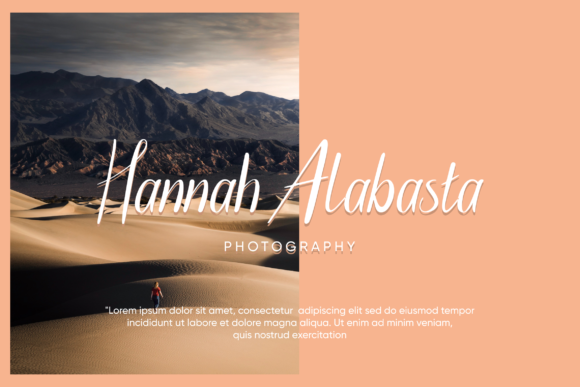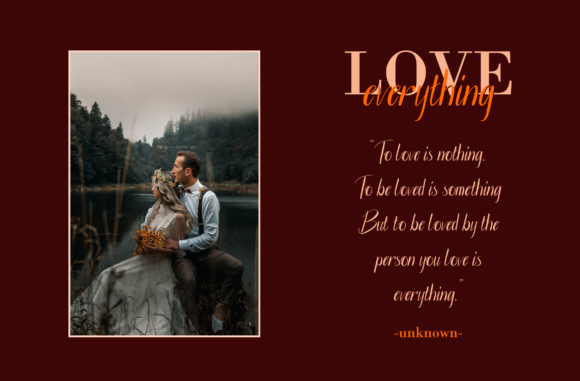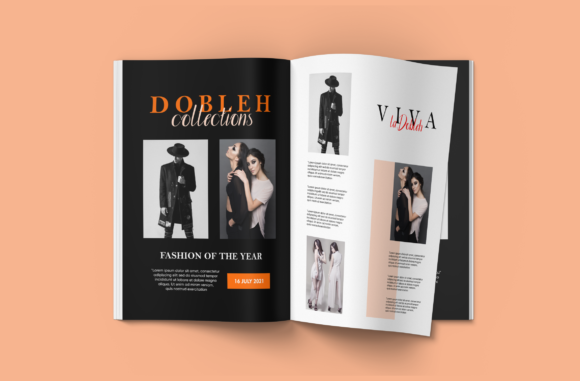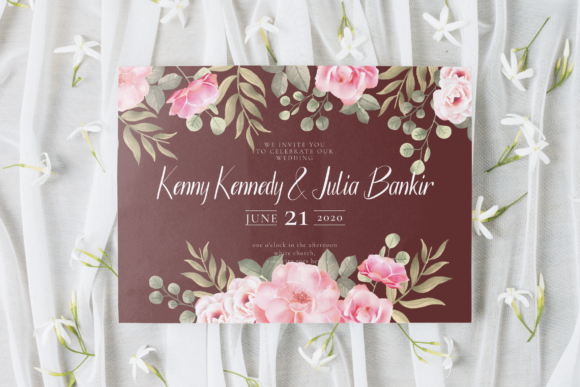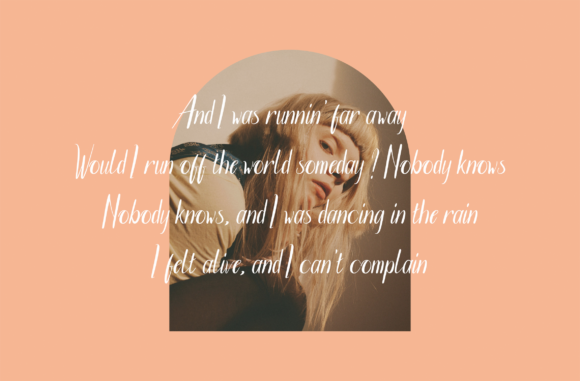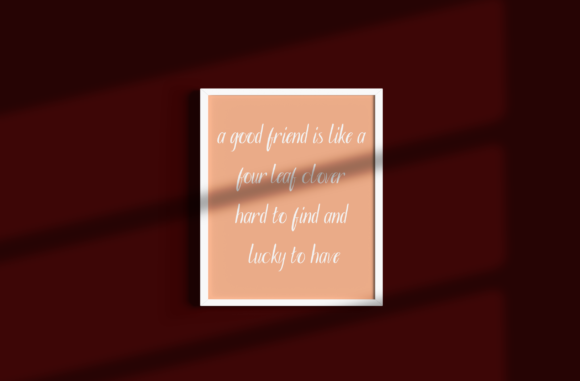
Bringing Your Designs to Life with the Perfect Script
Have you ever stared at a blank page, waiting for inspiration to strike? The blank space can be daunting, but sometimes all it takes is the right tool to set your creative juices flowing. For designers looking to add a touch of elegance to their work, the Brigitta Austin Font is the perfect companion.
This laid-back and versatile script font is designed to make your designs stand out. Whether you’re creating eye-catching logos, branding, or quotes, Brigitta Austin Font is the ideal choice. Its unique and beautiful touch brings each letter to life, making your design truly special. As a designer, you know the importance of having the right tools at your disposal – and Brigitta Austin Font is a valuable addition to any toolkit.
Brigitta Austin Font Key Features
- Unique Characteristics: Elegant, sophisticated, and refined script font with subtle flair and fluid connections
- Font Style: Script, Calligraphy
Brigitta Austin Font Review
As a designer, I recently had the chance to work with the Brigitta Austin Font, and I must say it’s a unique and intriguing typeface. ✨ The first thing that caught my attention was its elegant and refined aesthetic, perfect for creating a sophisticated and high-end look.
- ✨ Beautifully crafted letterforms with a mix of geometric and organic elements.
- ✨ Wide range of weights and styles to choose from, making it suitable for various design projects.
- ✨ Excellent legibility, even at smaller font sizes.
However, there are some limitations to consider. ⚠️ The font can feel a bit inconsistent in its spacing and kerning, which may require some manual adjustments in certain cases. Additionally, the font’s character set is not as comprehensive as some other typefaces, which may limit its use in certain languages or applications.
Overall, I think the Brigitta Austin Font is a great choice for designers who want to create a unique and stylish look. While it may require some extra attention to detail in terms of spacing and kerning, its elegant aesthetic and wide range of styles make it a valuable addition to any design toolkit.
Getting the Most Out of the Brigitta Austin Font
Here are some tips for getting the most out of the Brigitta Austin Font:
- Pair the font with other fonts to create a unique and eye-catching design.
- Use the font in conjunction with images and graphics to create a cohesive design.
The Brigitta
Alternatives to Brigitta Austin Font
Playfair Display is a luxurious, high-end serif font that exudes elegance and sophistication. It’s ideal for use in high-end branding, luxury products, and formal invitations. Compared to Brigitta Austin Font, Playfair Display has a more refined and classic feel, making it perfect for projects that require a touch of luxury.
Great Vibes is a beautiful, elegant script font that’s perfect for adding a touch of sophistication and whimsy to your designs. It’s ideal for use in wedding invitations, event branding, and packaging design. Compared to Brigitta Austin Font, Great Vibes has a more flowing and organic feel, making it perfect for projects that require a sense of movement and fluidity.
Carolyna Pro is a modern, elegant sans-serif font that’s perfect for use in contemporary branding, packaging design, and editorial design. It’s ideal for projects that require a clean, sophisticated, and modern look. Compared to Brigitta Austin Font, Carolyna Pro has a more streamlined and modern feel, making it perfect for projects that require a sense of simplicity and elegance.
Didot is a classic, elegant serif font that’s perfect for use in high-end branding, luxury products, and formal invitations. It’s ideal for projects that require a touch of sophistication and refinement. Compared to Brigitta Austin Font, Didot has a more classic and timeless feel, making it perfect for projects that require a sense of tradition and elegance.